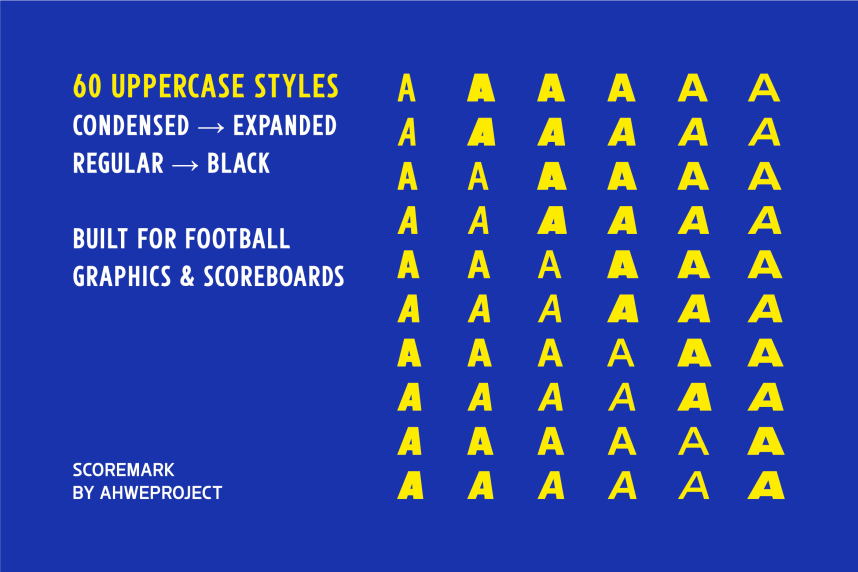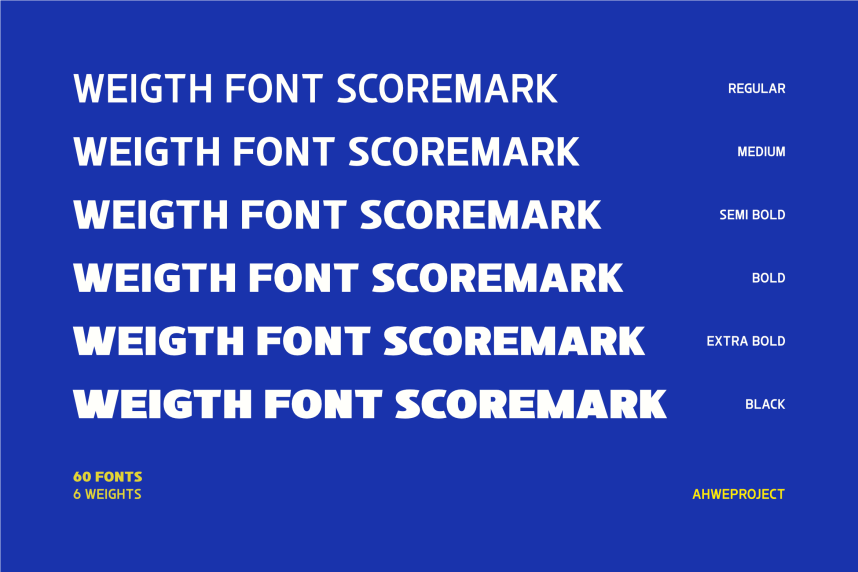
Scoremark Font
Scoremark Font is a bold sports display typeface designed to bring power, speed, and competitive energy into every headline. Inspired by stadium typography, professional match graphics, and team jerseys, this font is built to dominate large-scale layouts and capture instant attention.